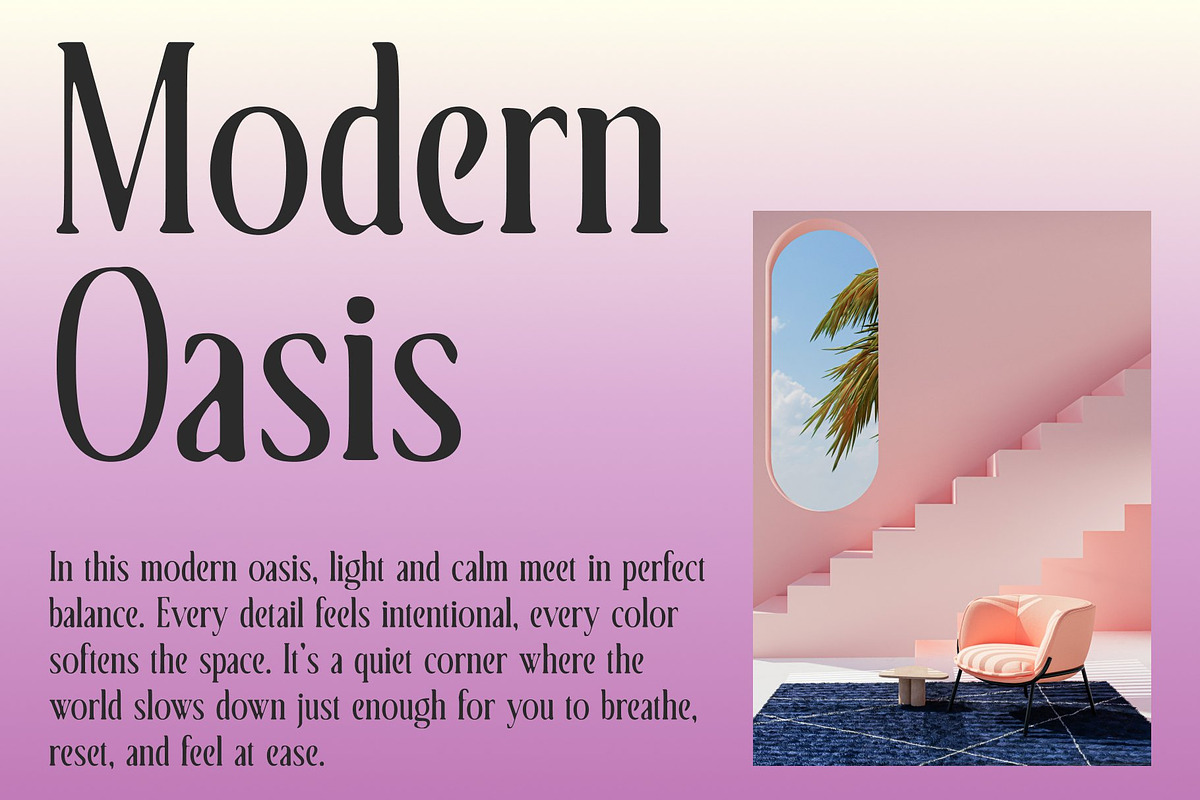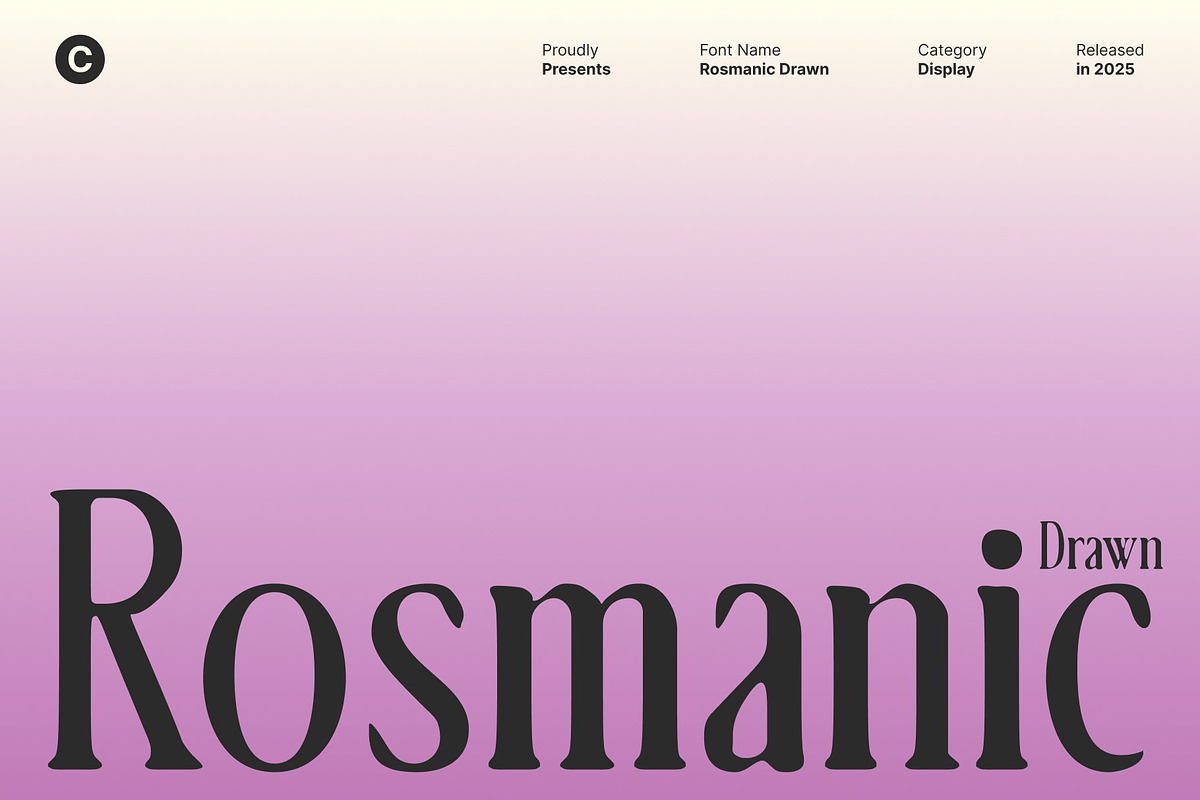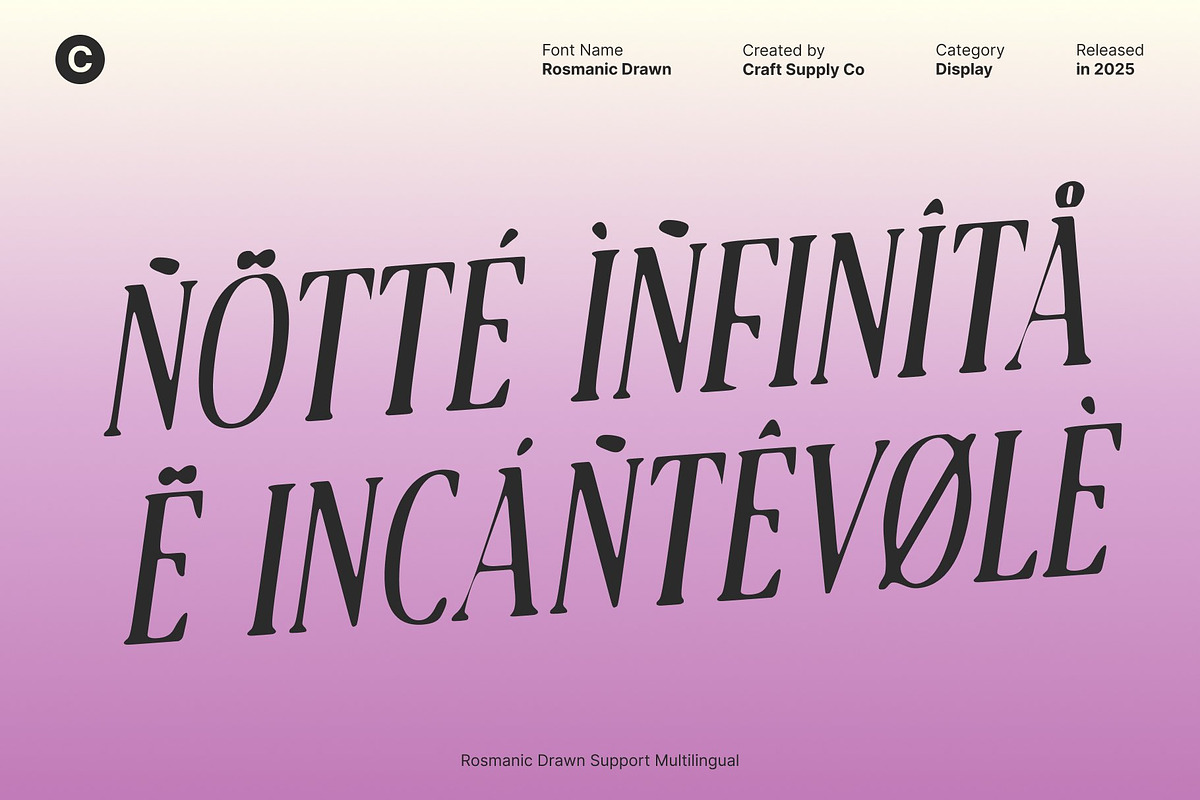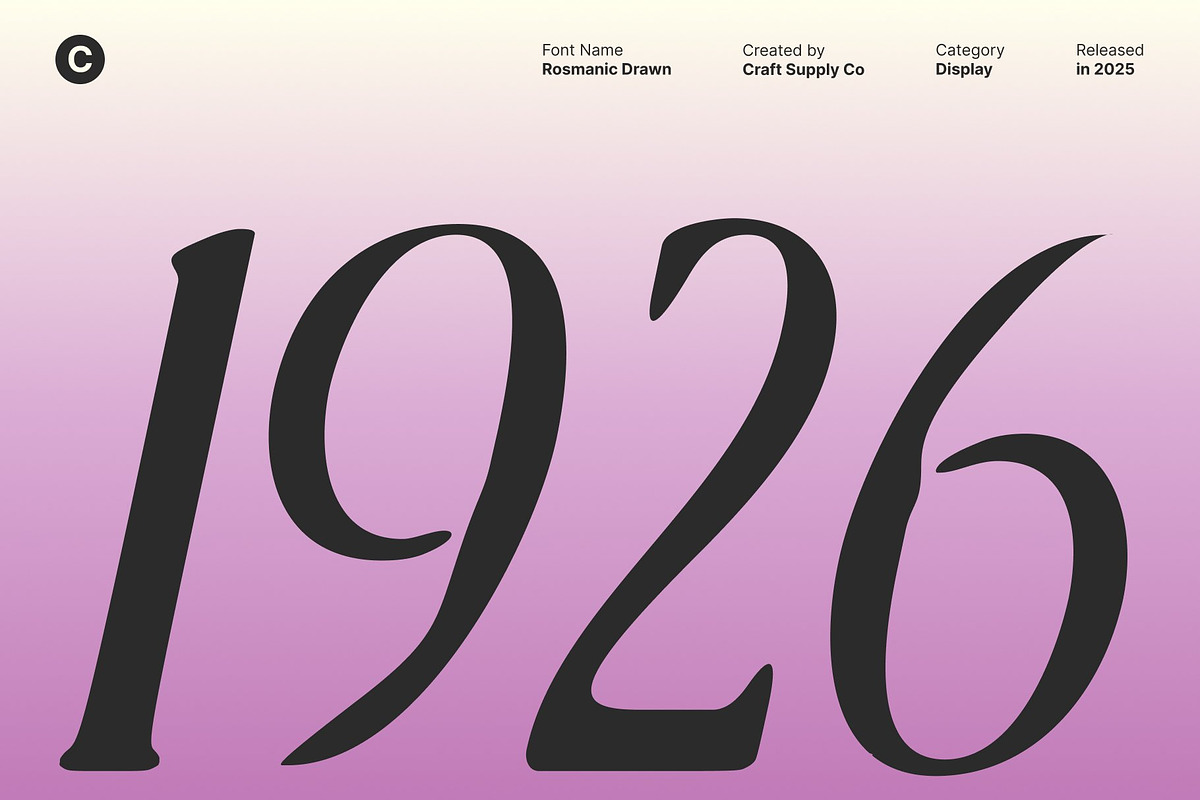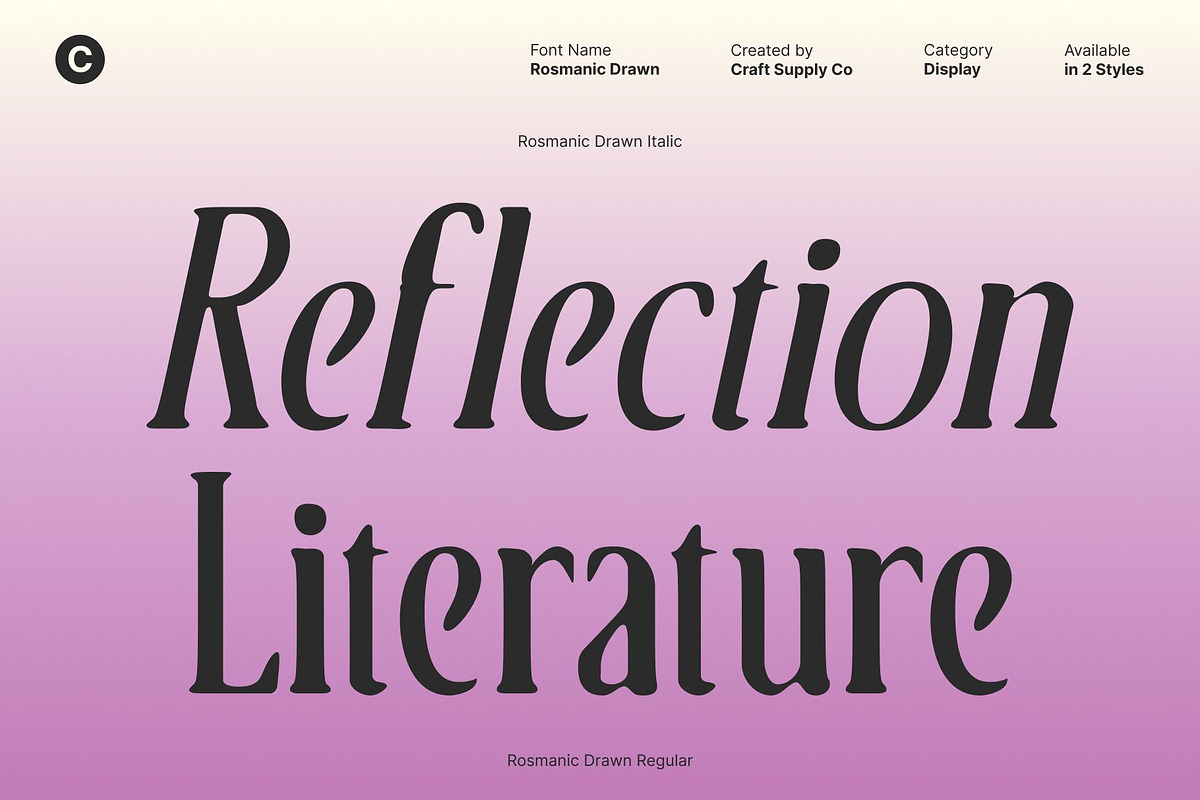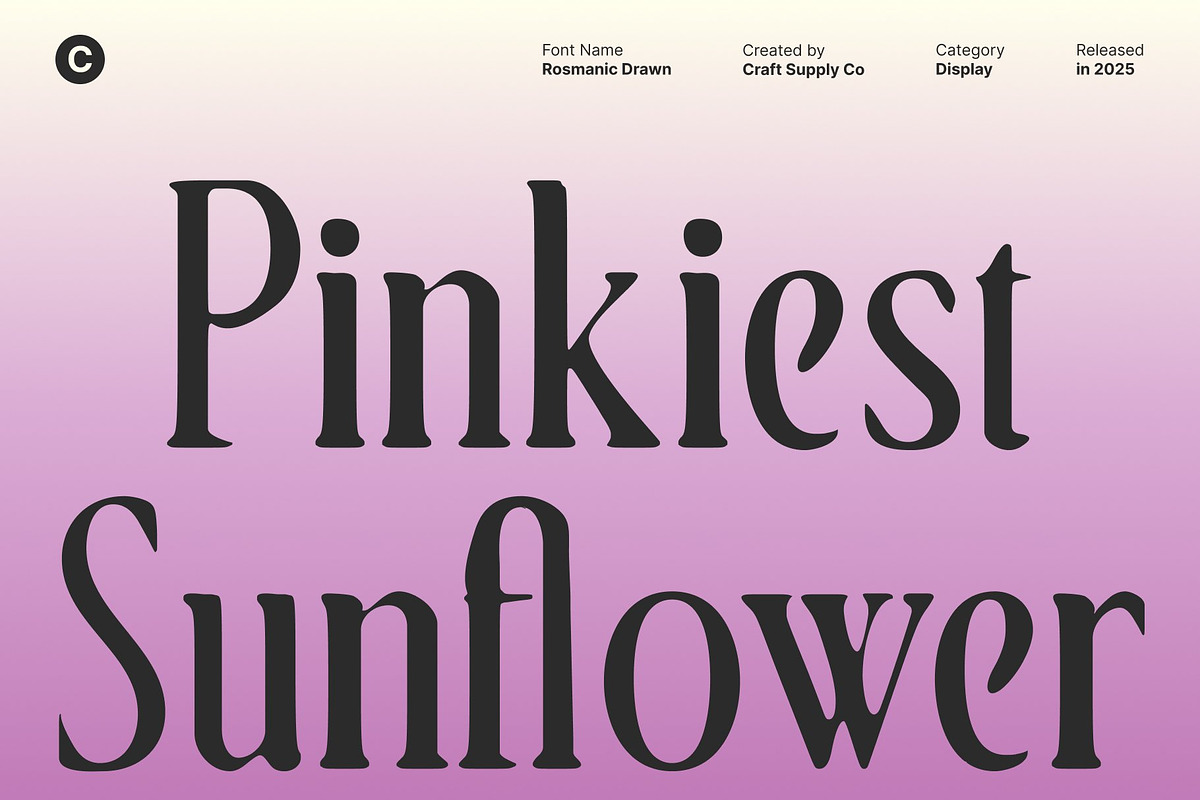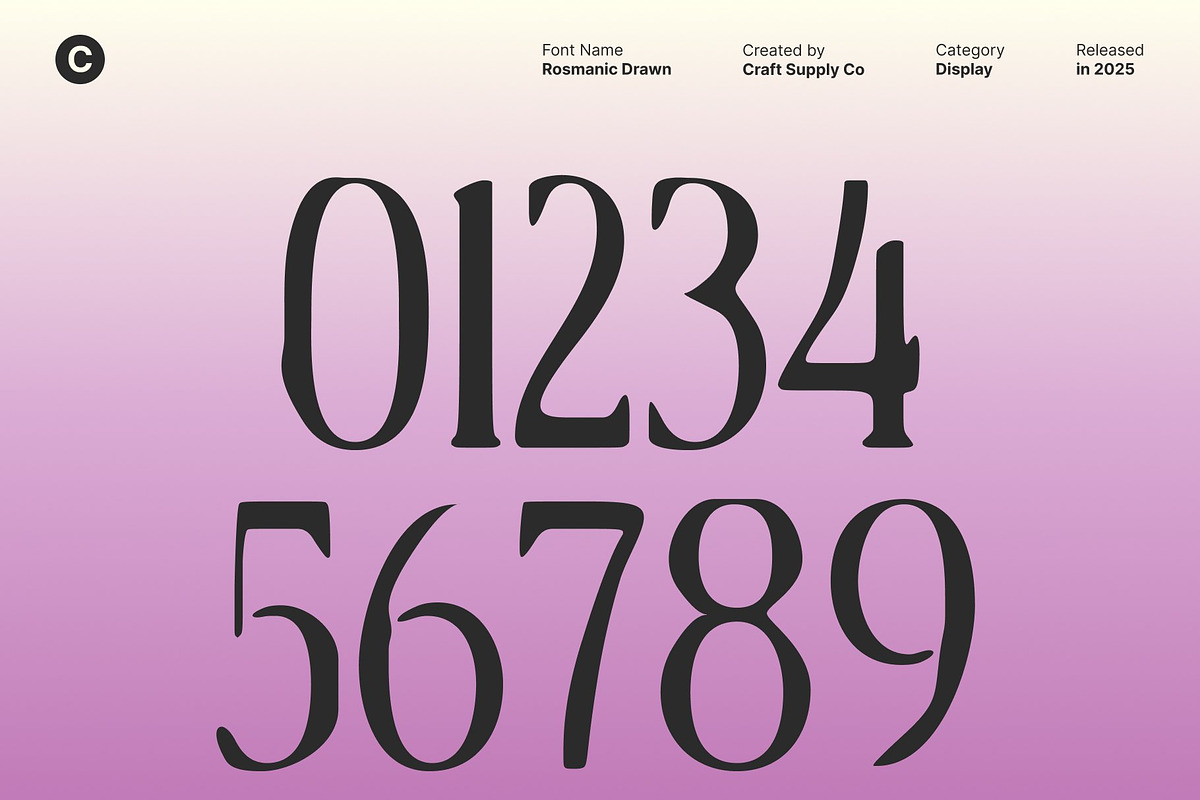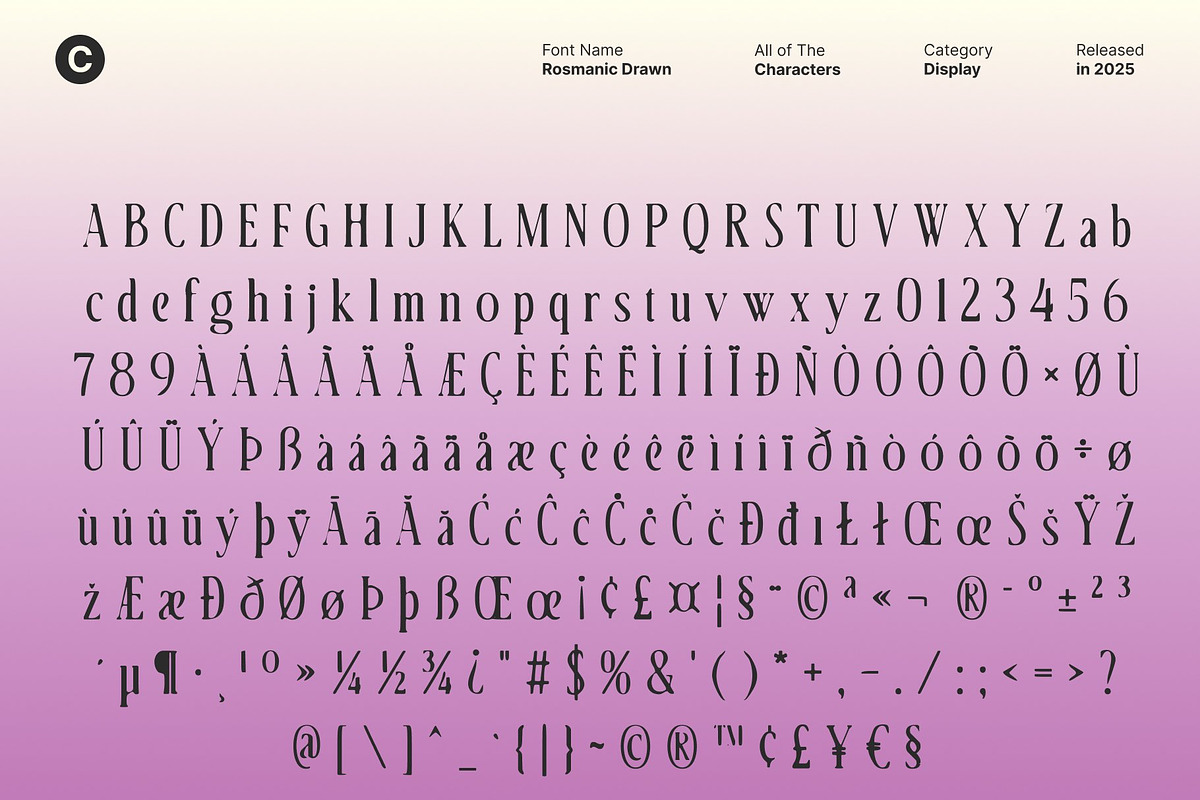
Rosmanic Drawn
Rosmanic Drawn – Renaissance-Inspired Serif with Artistic Handcrafted Flair
Flourished Serifs with Classical Renaissance Proportions This font brings the elegance of Renaissance typography into the modern design world. Featuring beautifully flourished serifs and balanced classical proportions, this display serif font captures the sophistication of historic manuscripts. Its ornamental details reflect the grandeur of traditional calligraphy, giving every letter a sense of cultural richness and timeless refinement.
Hand-Drawn Imperfections for Unique Artistic Expression The drawn effect introduces subtle irregularities that make each character feel handcrafted and expressive. These imperfect shapes add a layer of artistic charm, creating a warm, organic contrast to the otherwise classical structure. This font embraces the beauty of human touch transforming refined Renaissance elegance into a uniquely modern, artistic typeface that stands out effortlessly.
Perfect for Book Covers and Cultural Storytelling With its historical essence and decorative presence, this font is a natural fit for book covers especially genres rooted in history, culture, mythology, or classical literature. Its expressive serifs and manuscript-inspired form help set an authentic tone, making it ideal for designs that require depth, tradition, and storytelling through typography.
Ideal for Posters, Heritage Branding, and Artistic Displays This font shines in posters and branding projects that aim to convey sophistication and cultural identity. Its ornamental style and handcrafted texture bring character to visual compositions, making it a strong choice for museums, cultural events, artisanal labels, and heritage-focused branding.
- Rosmanic Drawn Regular
- Rosmanic Drawn Italic